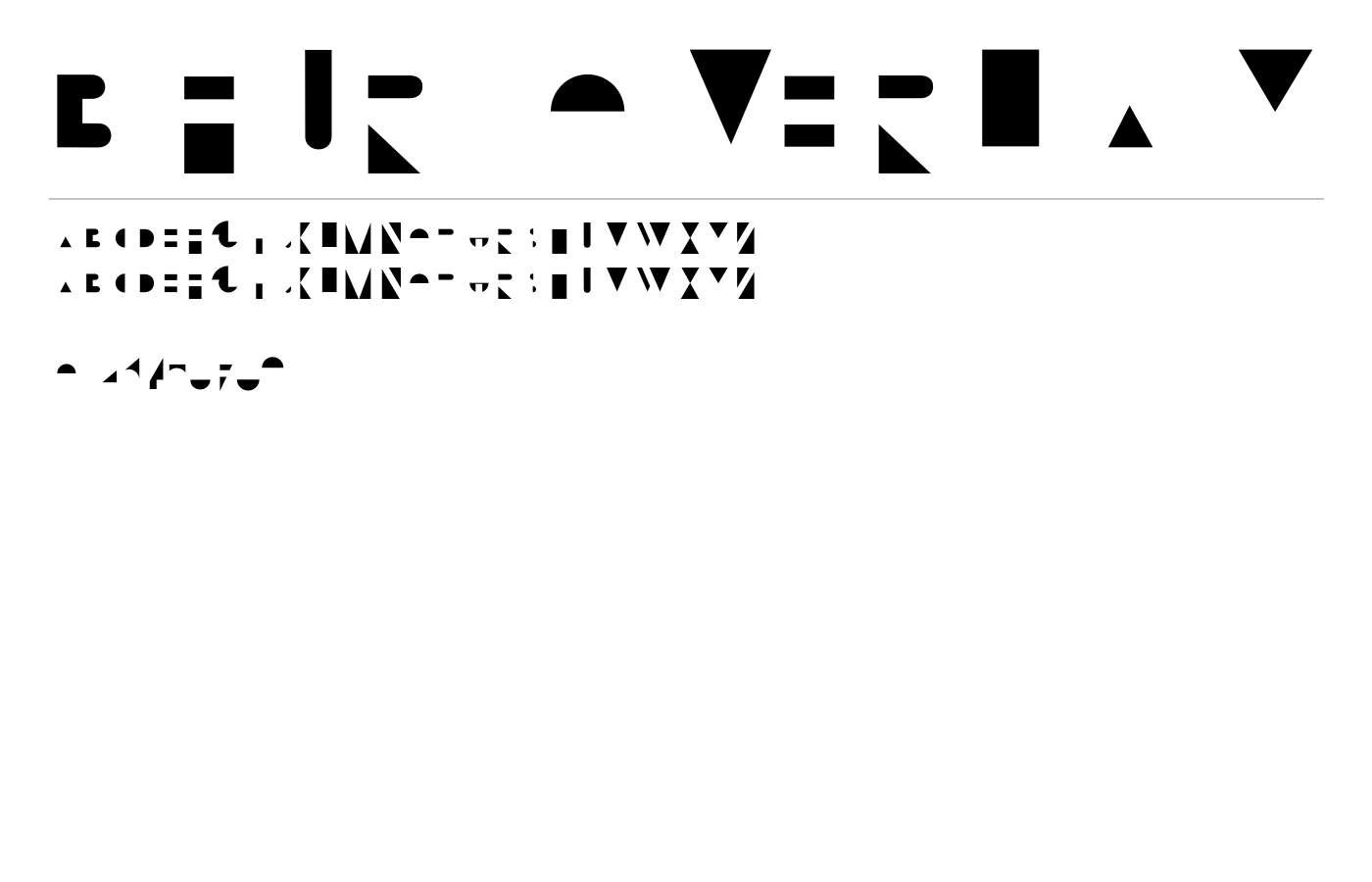
Bifur Overlay is a bold, geometric display font featuring a unique overlay structure that combines solid shapes with negative space, creating a striking visual effect. Its heavy weight and condensed style, paired with sharp angular forms, evoke a modern yet art deco-inspired personality, making it perfect for eye-catching headlines, logos, and creative branding where impact and style are key. This font’s distinct design suits projects that want to convey innovation, sophistication, and artistic flair.
Bifur Overlay Font
About Bifur Overlay Font
| Designer | A. M. Cassandre |